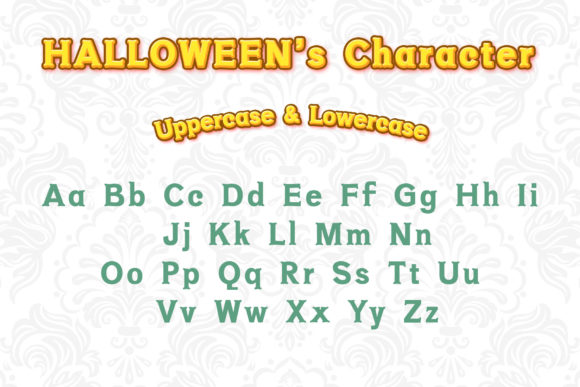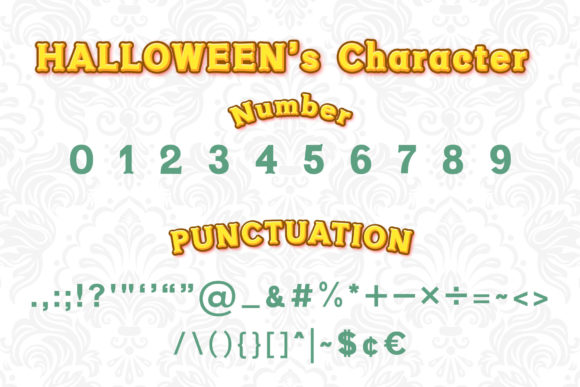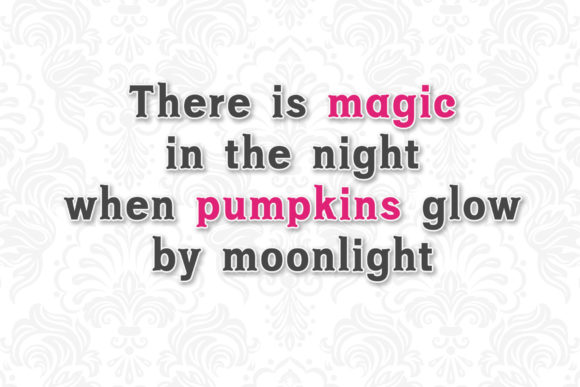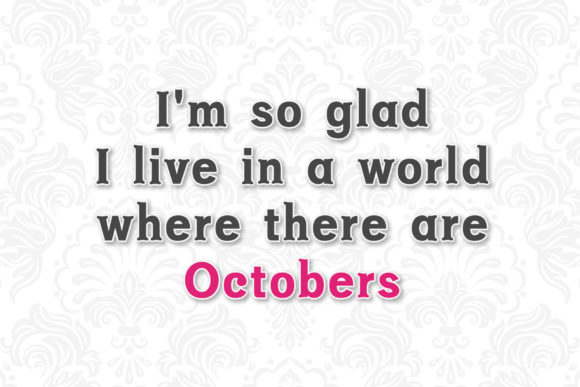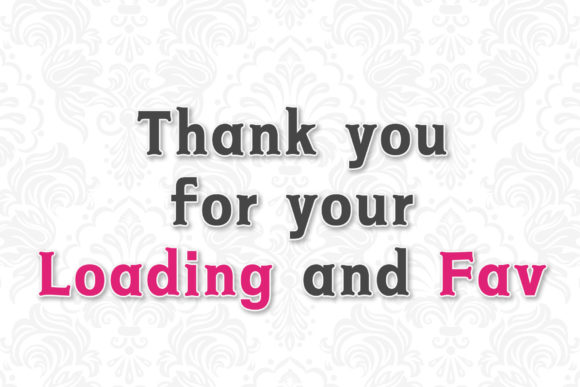
Unleash the Spoirit of Halloween with the Perfect Font: A Comprehensive Guide to Halloween Font
Halloween is just around the corner, and with it comes the excitement of creating spooky and spectacular designs. Whether you’re a designer, crafter, or simply a Halloween enthusiast, having the right font can make all the difference in bringing your creative ideas to life. That’s where the Halloween Font comes in – a minimal and neat serif font that’s perfect for adding a touch of eeriness and elegance to your projects.
What is Halloween Font?
Halloween Font is a specially designed font that’s tailored to capture the essence of the spookiest night of the year. Its minimal and neat serif design makes it incredibly versatile, allowing it to be matched with a wide range of projects, from invitations and decorations to social media graphics and more.
The font’s simplicity and elegance make it an excellent choice for designers and crafters who want to add a touch of sophistication to their Halloween-themed designs. Whether you’re creating a haunted house invitation, a spooky social media post, or a creepy craft project, Halloween Font is the perfect choice.
Key Features of Halloween Font
So, what makes Halloween Font so special? Here are some of its key features:
- Minimal and Neat Design: Halloween Font boasts a clean and minimalist design that’s perfect for creating elegant and sophisticated designs.
- Serif Style: The font’s serif style adds a touch of classic elegance to your designs, making it perfect for creating spooky yet refined projects.
- Versatility: Halloween Font can be matched with a wide range of projects, from digital designs to print materials, making it a great addition to your font library.
How to Use Halloween Font in Your Designs
Now that you know more about Halloween Font, let’s dive into how you can use it in your designs. Here are some ideas to get you started:
- Halloween Invitations: Create spooky and elegant invitations for Halloween parties, haunted houses, or other spooky events.
- Social Media Graphics: Add a touch of Halloween spirit to your social media posts with creepy yet stylish graphics.
- Craft Projects: Use Halloween Font to create spooky and fun craft projects, such as Halloween-themed cards, decorations, or DIY projects.
- Digital Designs: Incorporate Halloween Font into your digital designs, such as blog posts, website headers, or email newsletters.
Tips for Getting the Most out of Halloween Font
To get the most out of Halloween Font, here are some tips to keep in mind:
- Experiment with Different Sizes: Play around with different font sizes to create visual interest and add depth to your designs.
- Pair with Other Fonts: Combine Halloween Font with other fonts to create a unique and eye-catching design.
- Use in Combination with Images: Pair Halloween Font with spooky images or graphics to create a hauntingly beautiful design.